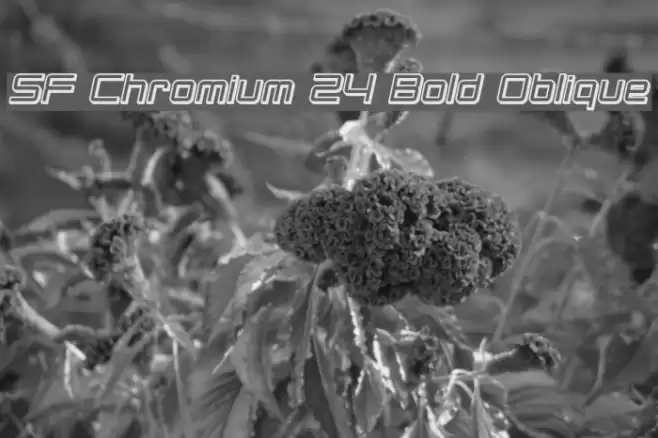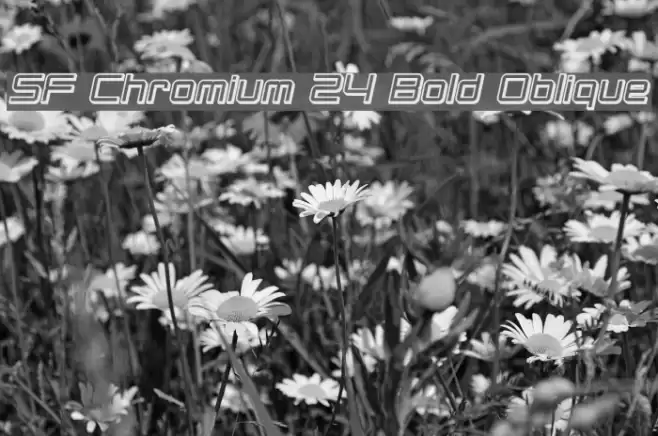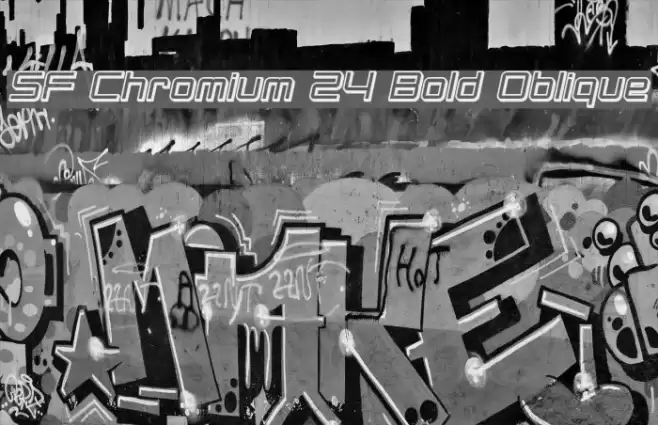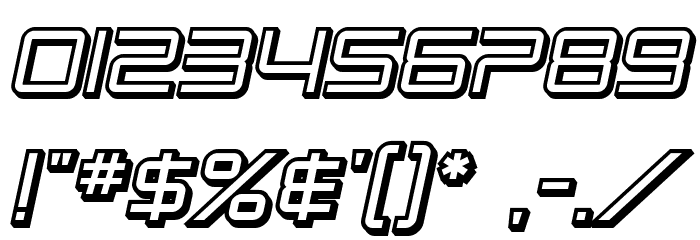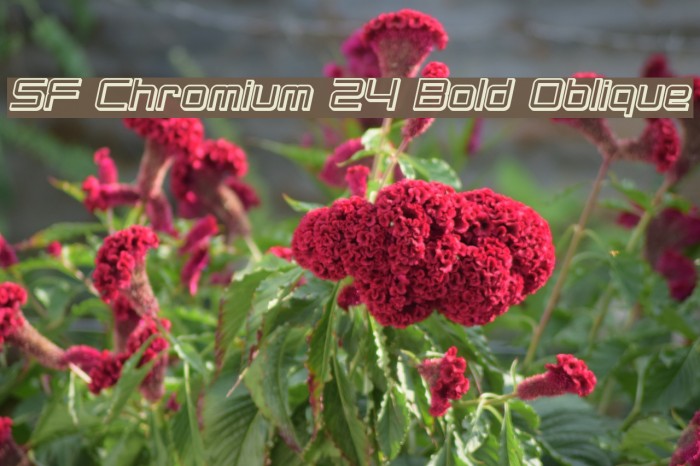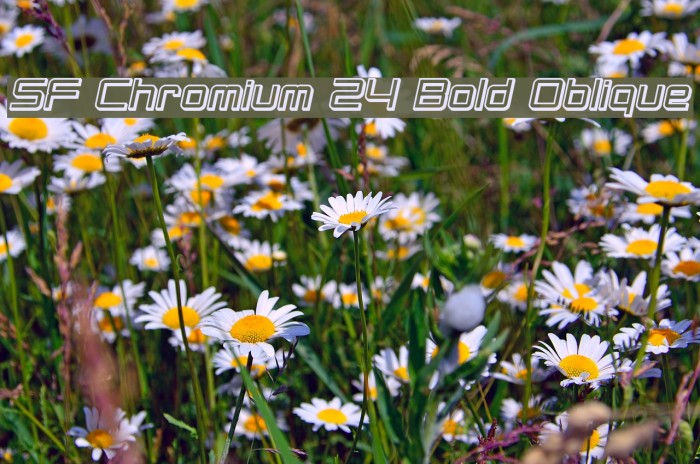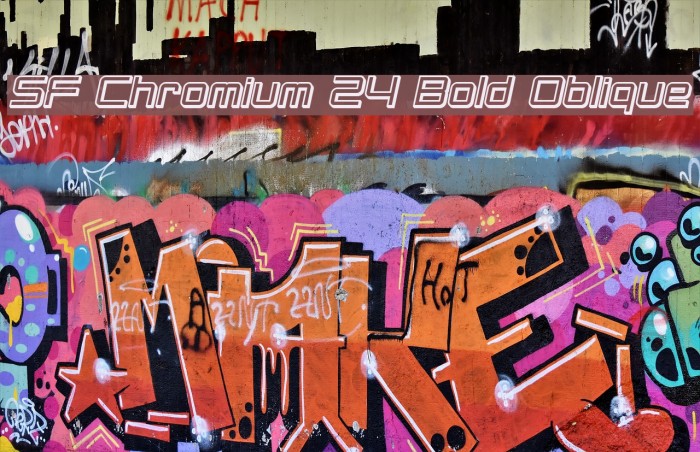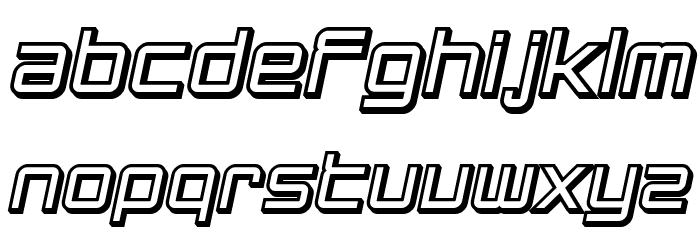
SF Chromium 24 Bold Oblique Font
SF Chromium 24 Bold Oblique Description
This font features a bold and oblique style with a futuristic and tech-inspired aesthetic. The characters are outlined, creating a hollow effect that adds depth and dimension. The uppercase and lowercase letters maintain a consistent geometric structure, with sharp angles and clean lines. The numerals and special characters follow the same design principles, ensuring uniformity across all glyphs. This font's distinct style makes it suitable for projects that require a modern and dynamic look.
A bold, oblique, and futuristic font with outlined characters from 3D fonts.
- Proposed Projects: Ideal for technology branding, sci-fi movie posters, video game titles, and modern advertising campaigns.